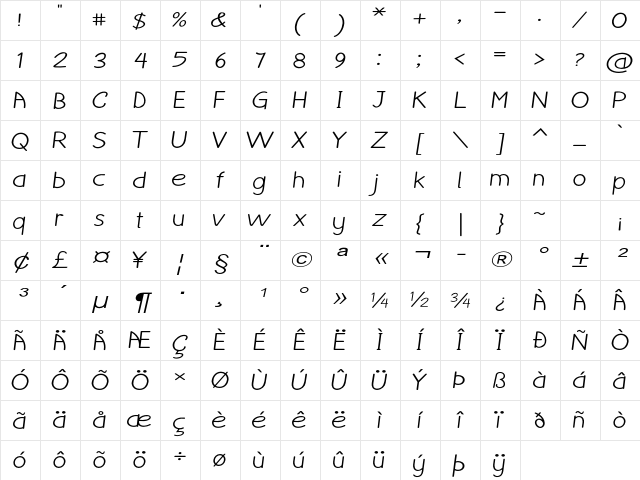
Quido Expanded Regular
Style: Expanded Regular
Complete Quido Expanded Regular glyph index. Displaying only characters natively supported by Quido Expanded Regular font.
Design Context for Quido
Quido is a composed and adaptable typeface that performs quietly and consistently across a wide range of design contexts.